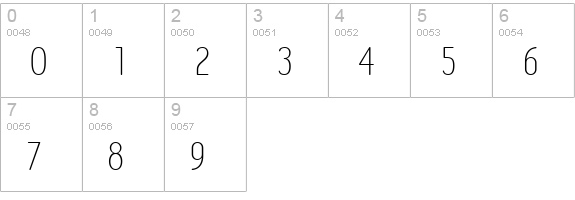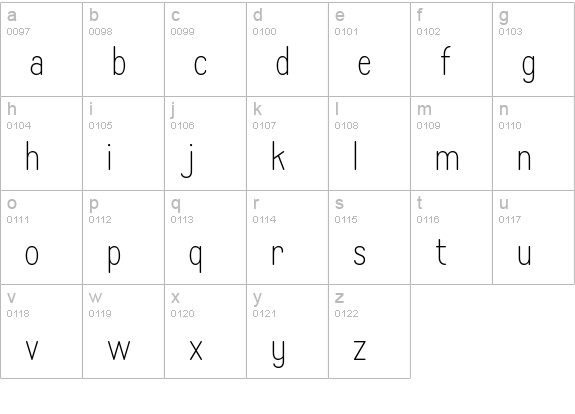
LA Headlights BTN Lt Font Details
Introducing LA Headlights BTN Lt, a sleek and stylish font that will illuminate your designs with its modern appeal. This font captures the essence of the bustling streets of Los Angeles, where the city lights dance in harmony with the rhythm of the urban landscape. LA Headlights BTN Lt is the perfect choice for those seeking a font that exudes sophistication and urban chic. Its clean lines and elegant curves effortlessly add a touch of class to any project, from logos and branding to posters and social media graphics. But what sets LA Headlights BTN Lt apart from the rest is its incredible versatility. Whether you're looking to create a bold statement or a subtle, understated design, this font has you covered. Its range of weights and styles allows you to effortlessly tailor your typography to suit your unique vision. What makes LA Headlights BTN Lt even more appealing is that it is freely available to download at FontsMarket.com. Yes, you read that right - this font is completely free and ready to enhance your creative endeavors. No need to break the bank or compromise on quality when you can have it all with this remarkable font. So, why wait? Give your designs the spotlight they deserve with LA Headlights BTN Lt. Download it today from FontsMarket.com and let your creativity shine bright.